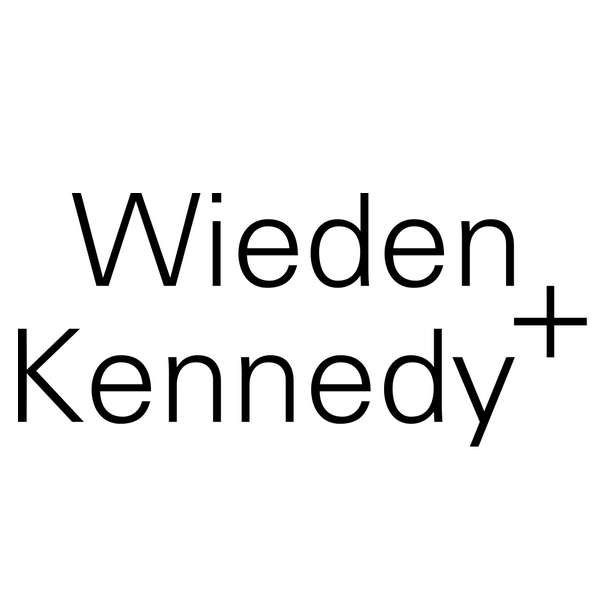
W+K Font
Fonts in UseWieden+Kennedy (W+K) is a global advertising agency known for its creative and innovative campaigns, with clients including Nike, Coca-Cola, and Airbnb.
The company logo most likely features Univers Light, a typeface created by Adrian Frutiger in 1957 for the Deberny & Peignot foundry in Paris. Further information on this typeface can be accessed here.